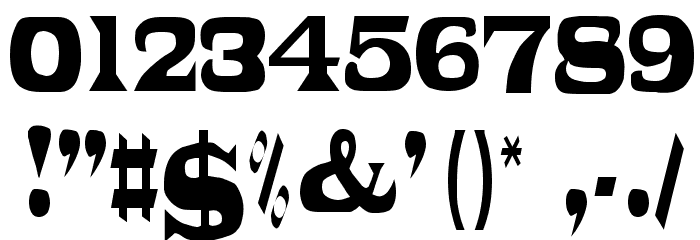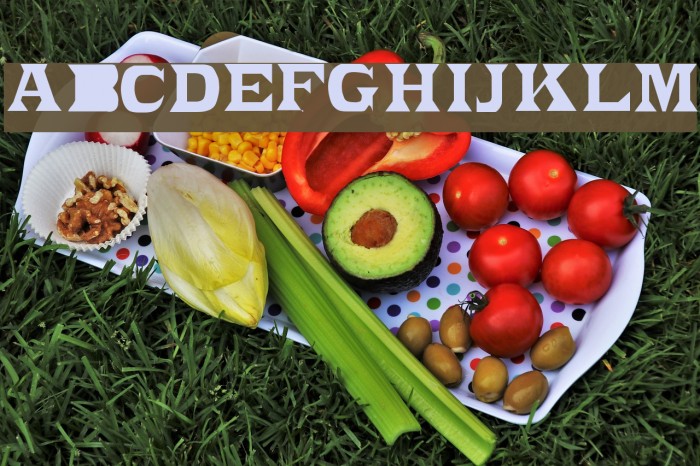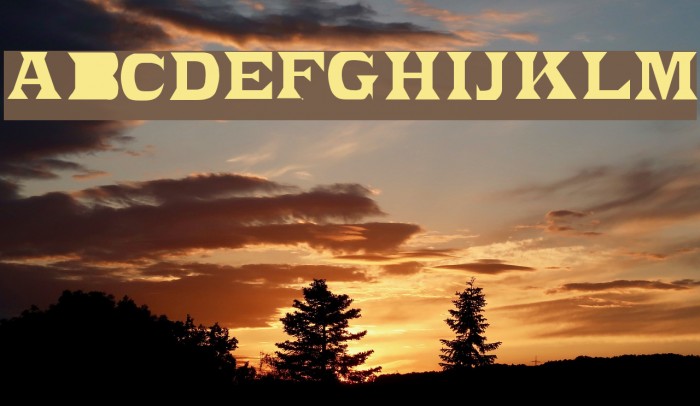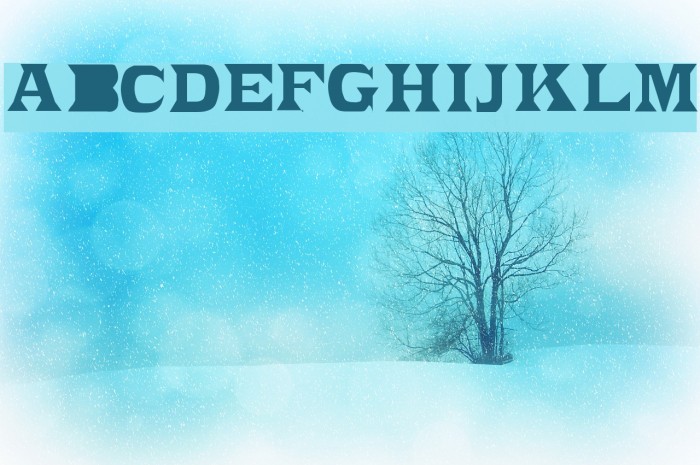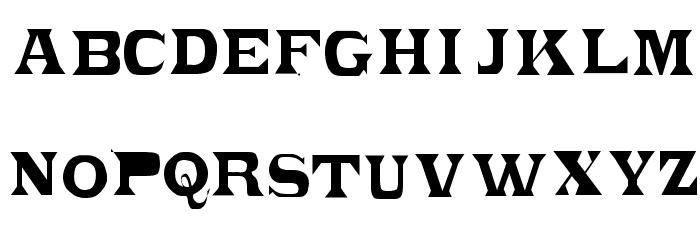
PonchoVia Regular Font
PonchoVia Regular Description
This font features a bold and striking design with a strong presence, characterized by thick, angular serifs and a robust structure. The uppercase letters are particularly prominent, with a distinctive geometric flair that adds a sense of authority and impact. The lowercase letters maintain a consistent style, ensuring readability while preserving the font's bold aesthetic. Numbers are equally bold, making them stand out effectively. The special characters are designed to complement the overall style, with a similar weight and angularity. This font is ideal for projects that require a commanding and attention-grabbing typeface.
| Proposed Projects | Ideal for posters, branding, headlines, and any design requiring a bold statement. |